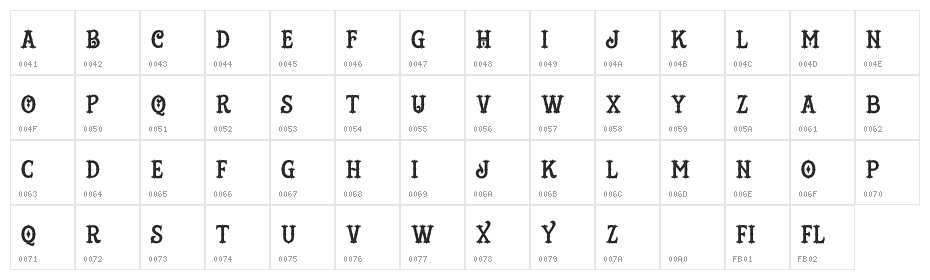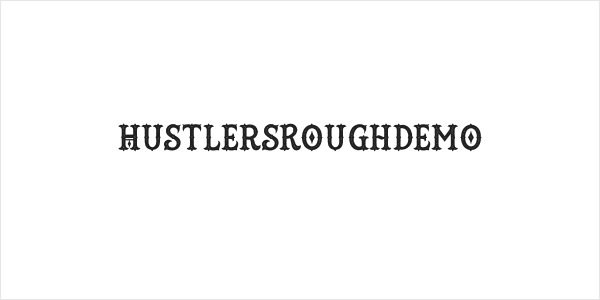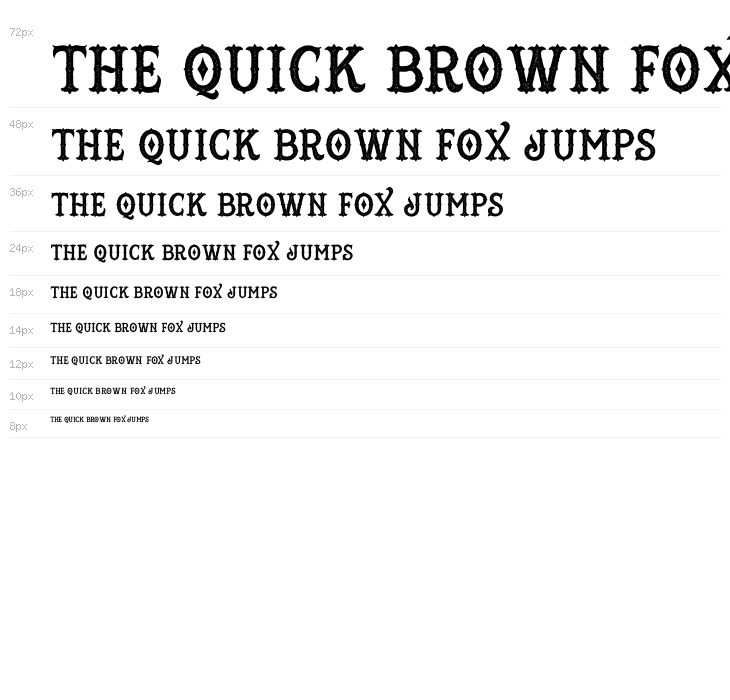
HustlersRoughDemo Font
HustlersRoughDemo Description
This font features a bold and decorative style with a rough, textured appearance that gives it a vintage and rugged feel. The characters are embellished with intricate details and flourishes, making it stand out as a display typeface. The uppercase and lowercase letters maintain a consistent design, with each character exhibiting unique ornamental elements that add to its charm. The numbers and special characters are equally stylized, ensuring a cohesive look across all glyphs. This font's distinct personality makes it ideal for projects that require a strong visual impact.